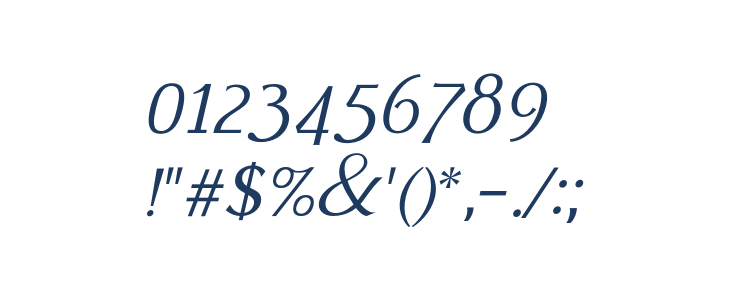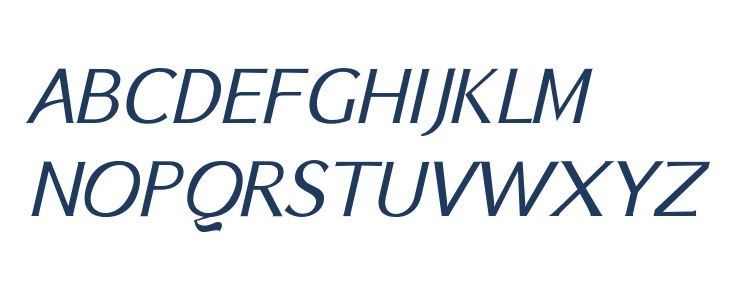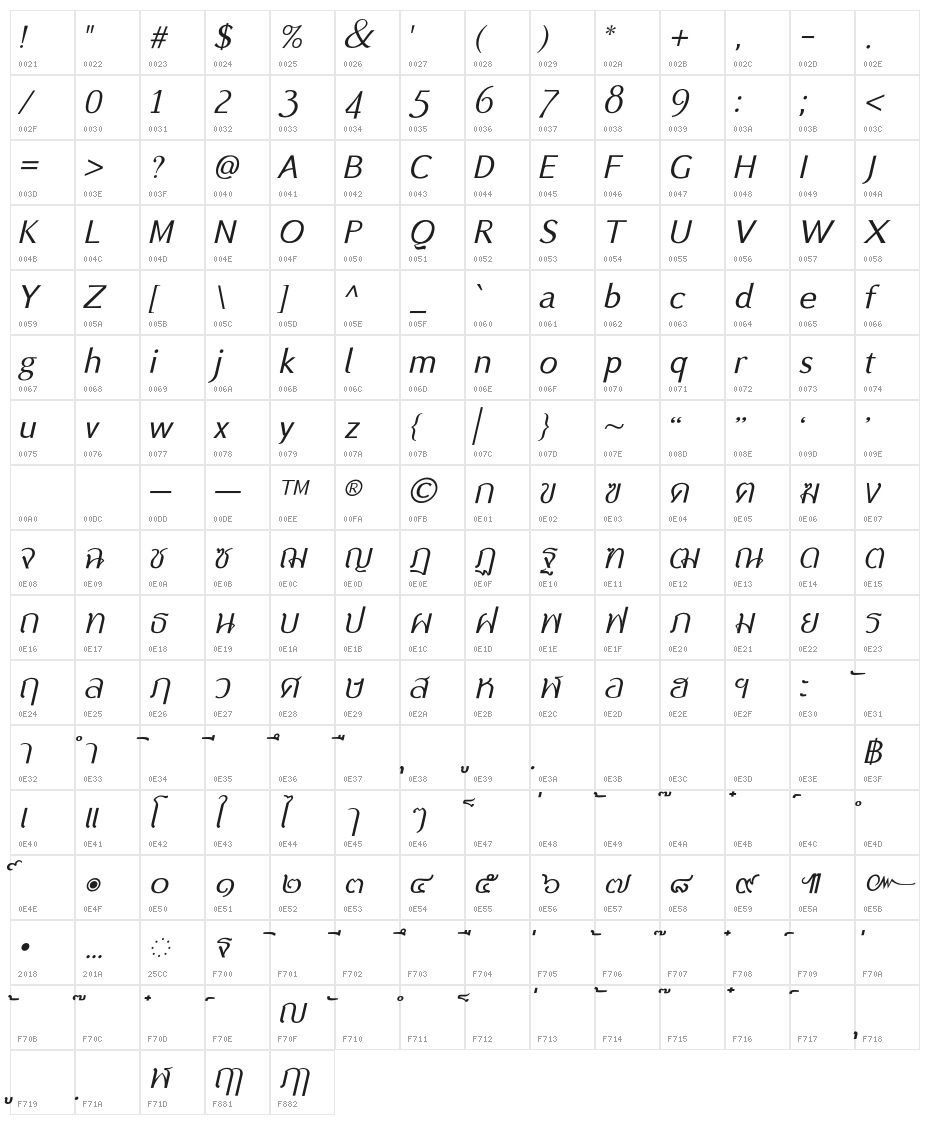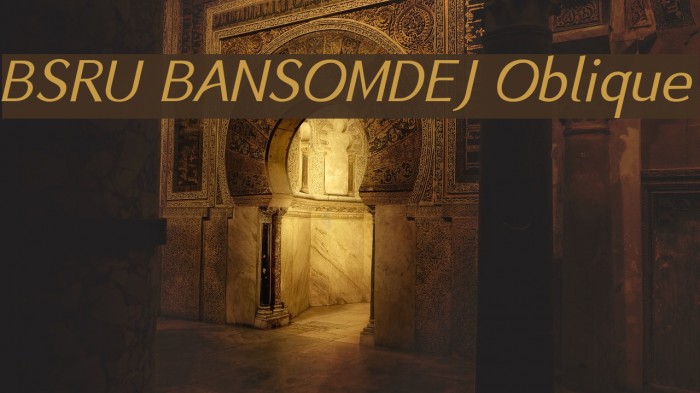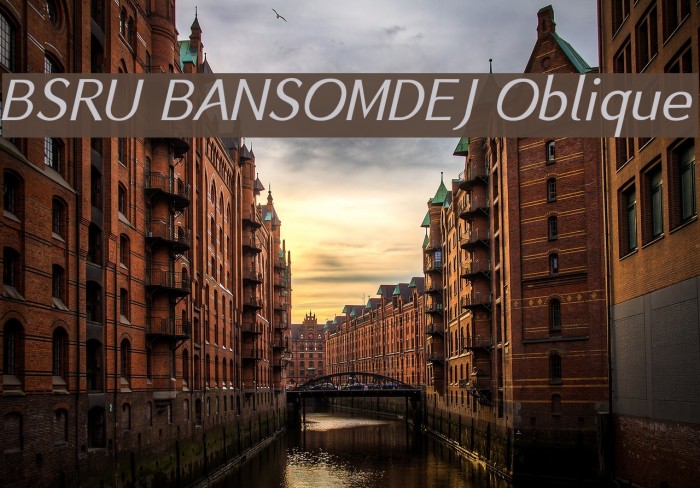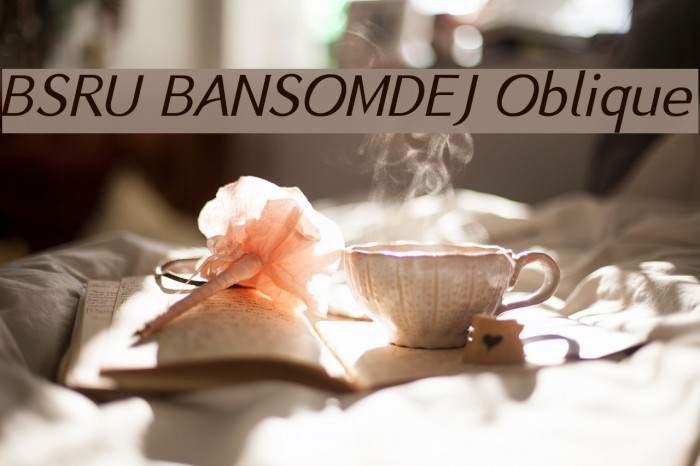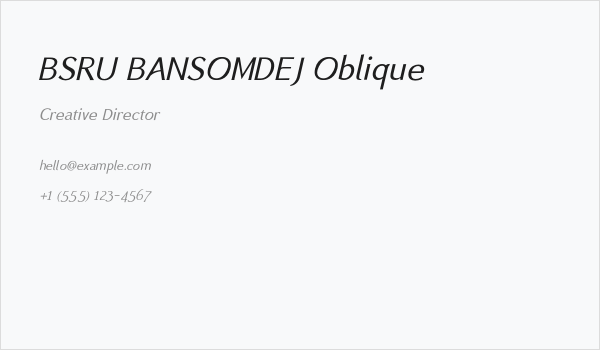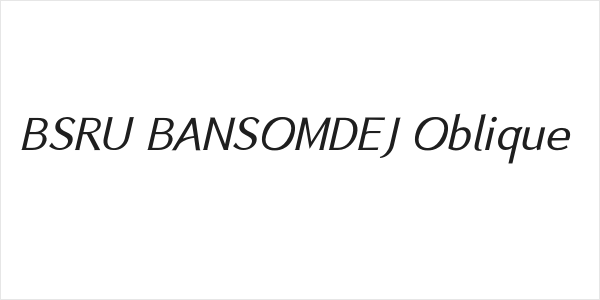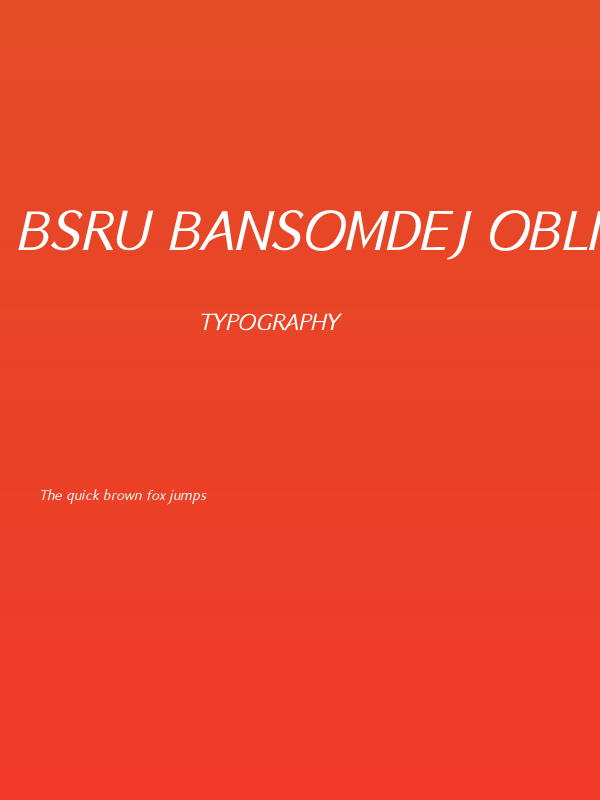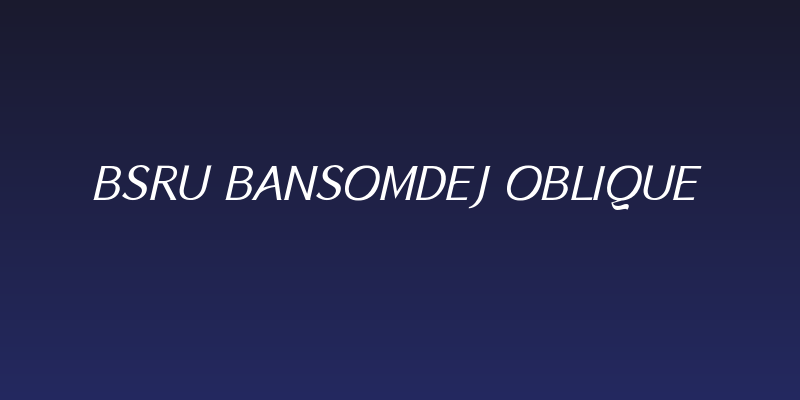
BSRU BANSOMDEJ Oblique Font
BSRU BANSOMDEJ Oblique Description
This font features an elegant and dynamic oblique style, characterized by its slanted letterforms that convey a sense of motion and sophistication. The strokes are smooth and consistent, with a moderate contrast between thick and thin lines, adding to its refined appearance. The uppercase letters are bold and commanding, while the lowercase letters maintain a graceful flow. Numbers and special characters are designed to complement the overall aesthetic, ensuring readability and style. This font is versatile, suitable for both formal and creative applications.